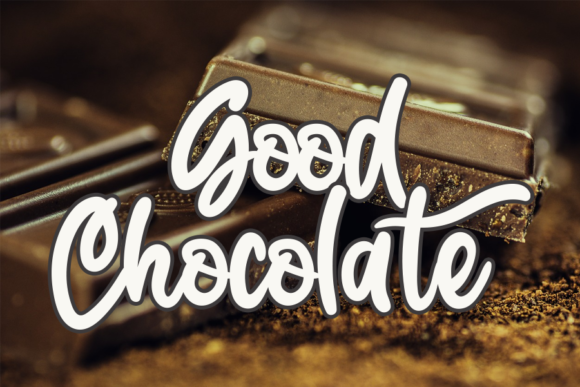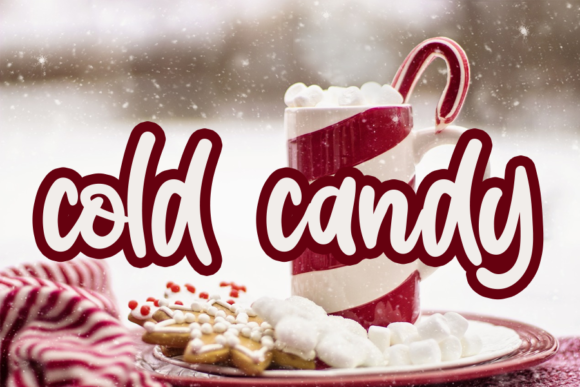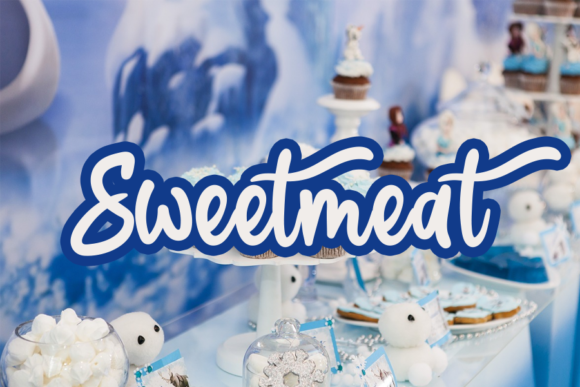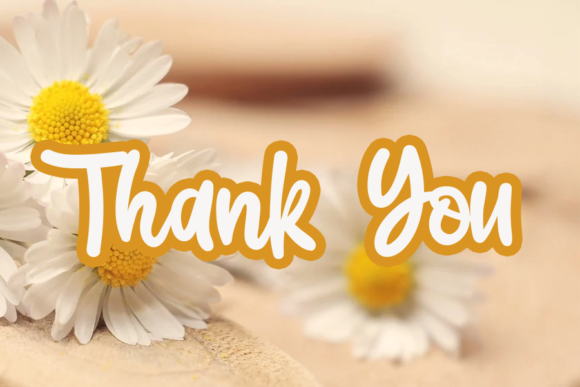
Candy Valentine Font
About Candy Valentine Font
Candy Valentine is a delightful and adorable handwritten font that captures the essence of sweetness and charm. With its careful crafting, this font has become a true favorite among designers. It strikes a perfect balance between maintaining a classy calligraphic influence and exuding a contemporary and fresh vibe.
The versatility of Candy Valentine makes it an excellent choice for a wide range of creative projects. Whether you’re designing letterheads, titles, or even writing tools, this font will bring a touch of playfulness and elegance to your designs. Its unique style and character will instantly captivate the attention of your audience.
With Candy Valentine, you can create designs that evoke feelings of love, joy, and whimsy. Its handwritten appearance adds a personal and authentic touch, making it ideal for crafting heartfelt messages, invitations, and more. The carefully crafted letterforms ensure that each character maintains its graceful and appealing quality.
Whether you’re working on branding materials, social media graphics, or any other design project, Candy Valentine will infuse it with a sense of charm and sophistication. Its versatility allows it to adapt seamlessly to different design themes and styles, adding a touch of sweetness to every creation.
Embrace the delightful nature of Candy Valentine and explore the endless possibilities it offers. From crafting beautiful letterheads to creating captivating titles, this font will effortlessly enhance your designs. Let its classy calligraphic influence and contemporary freshness shine through, bringing your crafty ideas to life.
In summary, Candy Valentine is a cute and carefully crafted handwritten font that combines a classy calligraphic influence with a contemporary and fresh style. Its versatility makes it suitable for various crafty ideas, from letterheads and titles to writing tools. Let Candy Valentine add a touch of sweetness and charm to your designs, making them truly memorable.